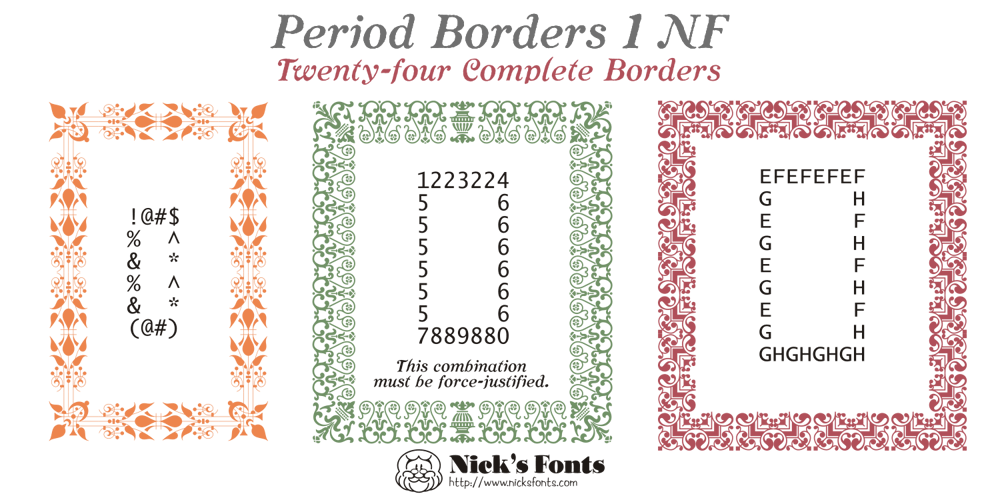
Period Borders NF Font Family was designed by Nick Curtis and published by Nick’s Fonts. Period Borders NF contains 8 styles and family package options. Here’s a collection of border elements taken from the pages of nineteenth and early twentieth century type specimen books of various American foundries. Download the PDF provided for each font for simple guides to constructing various borders. All characters have identical widths, so use spaces between left and right-side elements. For best results, set solid (no extra leading) and use flush left, flush right or center justification to assure proper alignment.